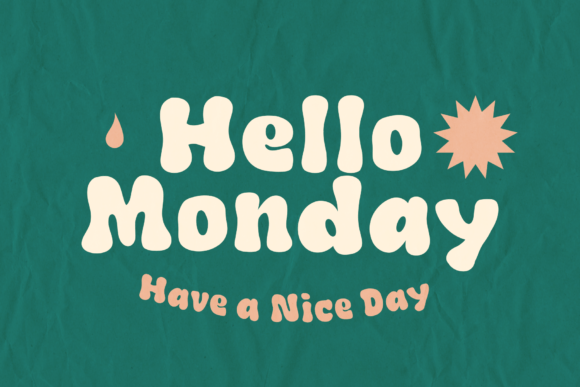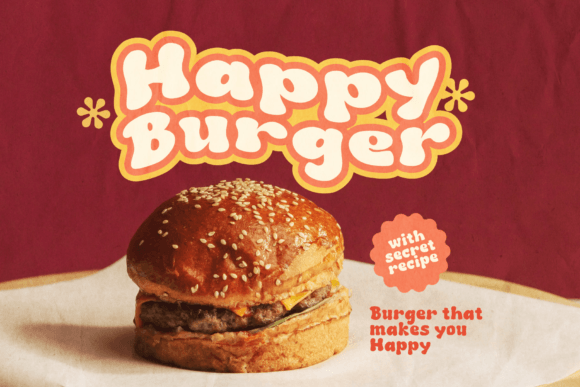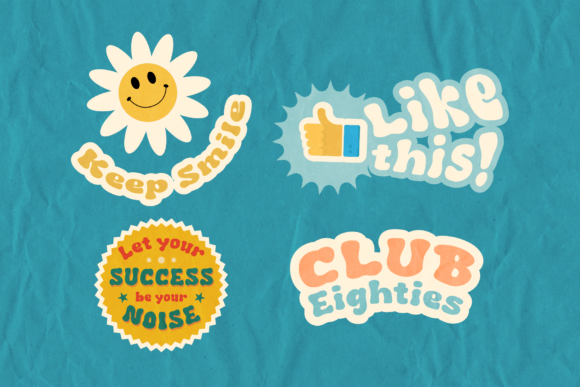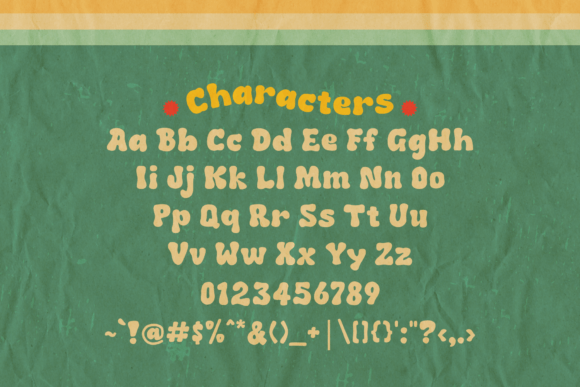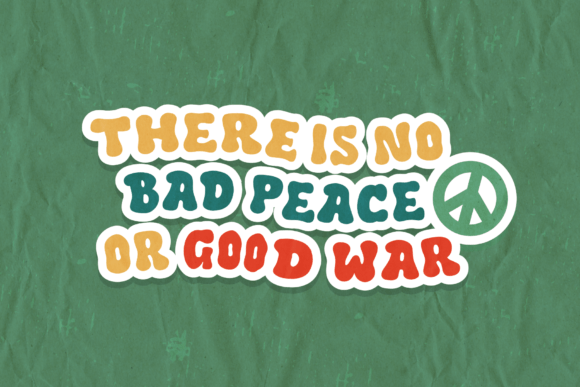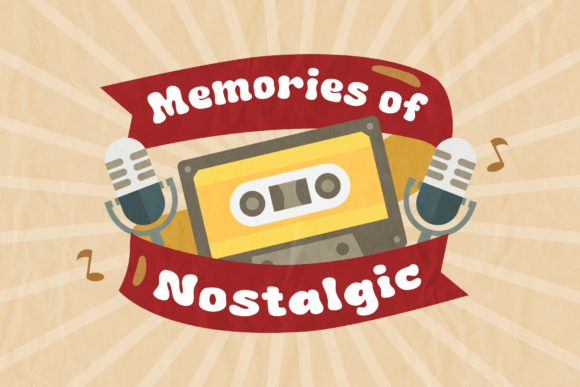
The Perfect Blend of Vintage Charm and Modern Design
Have you ever found yourself rummaging through your grandparents’ attic, uncovering dusty old trunks and forgotten treasures? It’s in these moments that we’re reminded of the beauty of the past, and the inspiration that can be found in vintage items. As designers, we’re always on the lookout for new ways to bring this charm to our work, and that’s where the Bocilato Font comes in.
This playful font is a masterclass in capturing the essence of a bygone era, with its hand-crafted design making it perfect for creating vintage-inspired designs, retro infographics, and logos. Whether you’re looking to add a touch of nostalgia to your branding or create eye-catching apparel designs, the Bocilato Font is a valuable tool in your design arsenal.
Bocilato Font Key Features
- Font Family: Bocilato Font is a unique, hand-drawn font that offers a playful and elegant feel to any design.
- Language Support: Supports multiple languages, including Latin, Cyrillic, and Greek alphabets.
- Unique Characteristics: Features a distinctive, hand-drawn style with intricate details and subtle imperfections, adding a touch of personality to any design.
- Font Pairing: Can be paired with a variety of fonts to create a unique and eye-catching visual identity.
Bocilato Font Review
Overall, I think the Bocilato font is a nice addition to any design project. Here’s what works well:
- ✨ Unique character: The font’s distinctive design makes it stand out from more common sans-serif fonts.
- ✨ Legibility: Despite its quirky appearance, the font is still easy to read, even at smaller sizes.
- ✨ Versatility: The font comes in multiple weights and styles, making it suitable for a wide range of applications.
- ⚠️ Limited language support: The font may not include all the characters needed for languages that use non-Latin scripts.
- ⚠️ Potential difficulties with pairing: The font’s unique design may make it challenging to pair with other fonts in a way that looks harmonious.
- ⚠️ May not be suitable for formal or professional projects: The font’s playful, quirky feel may not be suitable for projects that require a more formal tone.
Overall, I think the Bocilato font is a great choice for projects that need a bit of personality and flair. While it may have some limitations, it’s a versatile and eye-catching font that can add some real interest to a design.
Getting the Most Out of Bocilato Font
Here are some tips to get the most out of Bocilato Font:
- Combine Bocilato Font with other fonts for a unique look.
- Use Bocilato Font for headings and titles to create a clear hierarchy.
Bocilato Font is perfect
Alternatives to Bocilato Font
Montserrat is a modern sans-serif font designed for digital media. It’s a great alternative to Bocilato Font for projects that require a clean and minimalist aesthetic. Montserrat is more versatile and has a wider range of weights, making it suitable for various design applications. Compared to Bocilato Font, Montserrat has a more geometric and structured feel.
Playfair Display is a luxurious and elegant script font that’s perfect for high-end designs. It’s an excellent choice for projects that require sophistication and refinement. While Bocilato Font has a unique, handwritten feel, Playfair Display is more ornate and ornamental. Use Playfair Display when you need to add a touch of luxury and sophistication to your design.
Lato is a clean and modern sans-serif font that’s highly legible. It’s an ideal alternative to Bocilato Font for projects that require a clear and concise message. Lato is more straightforward and lacks the distinctive feel of Bocilato Font. Use Lato when you need a simple and effective font for your design.